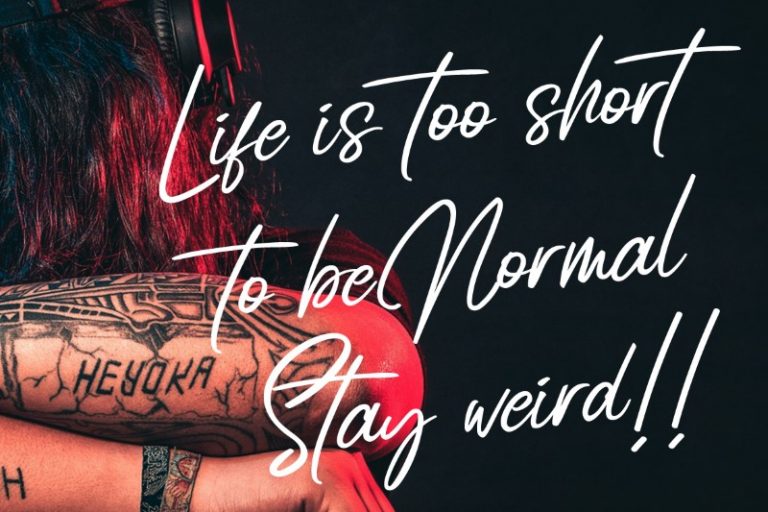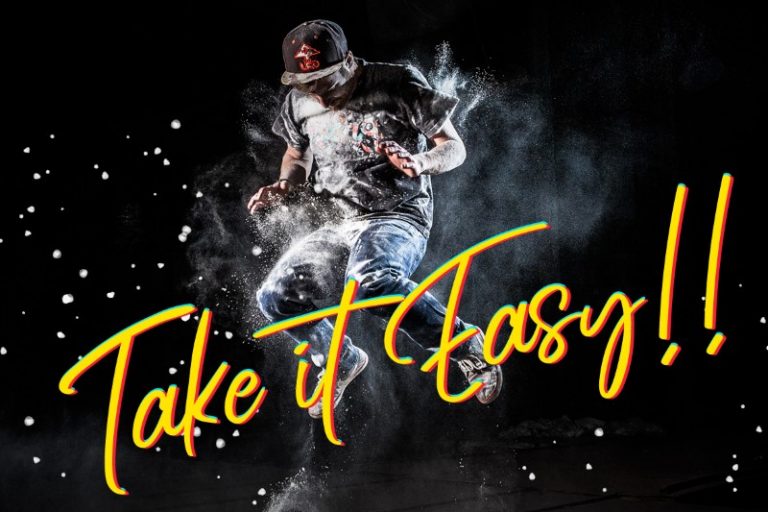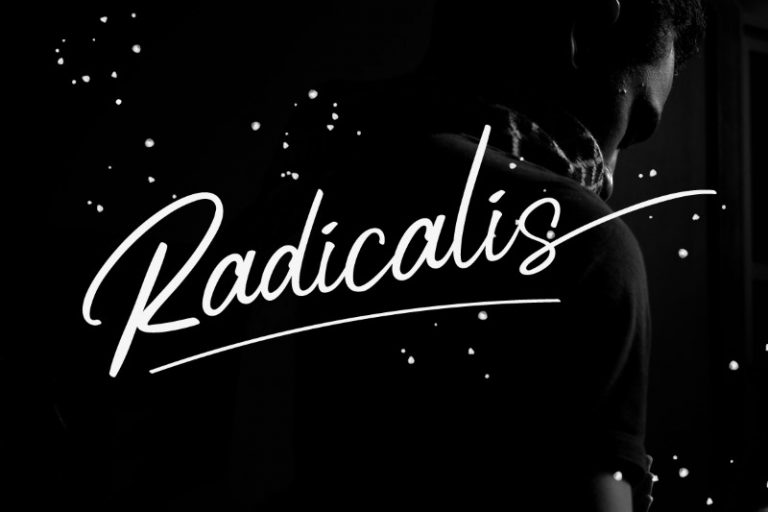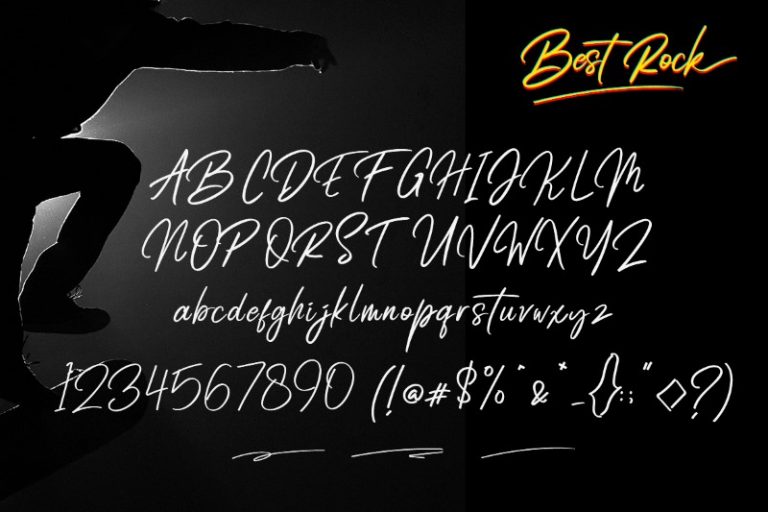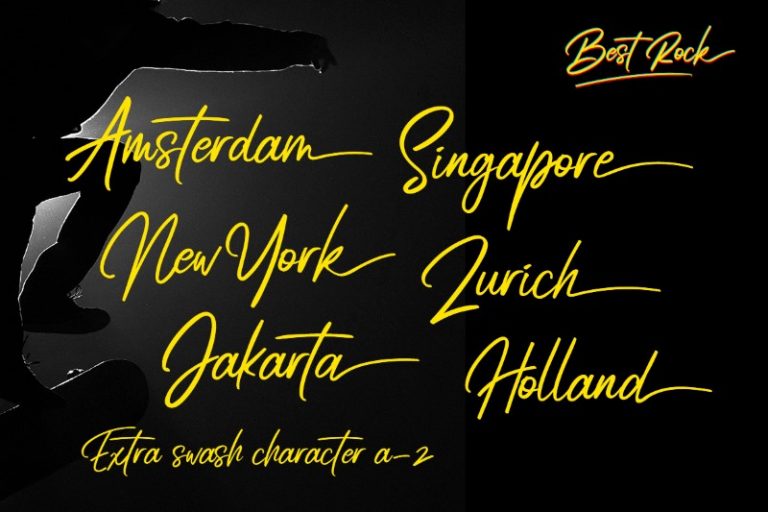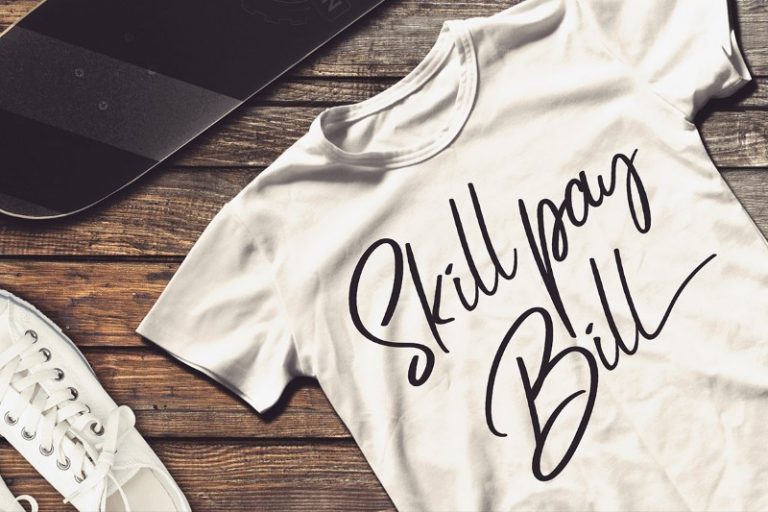
Best Rock
Introuducing Best Rock- handlettering font. Made by pure handlettering. this font suitable for branding, tshirt printing, quote and logotype.